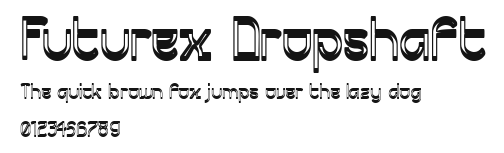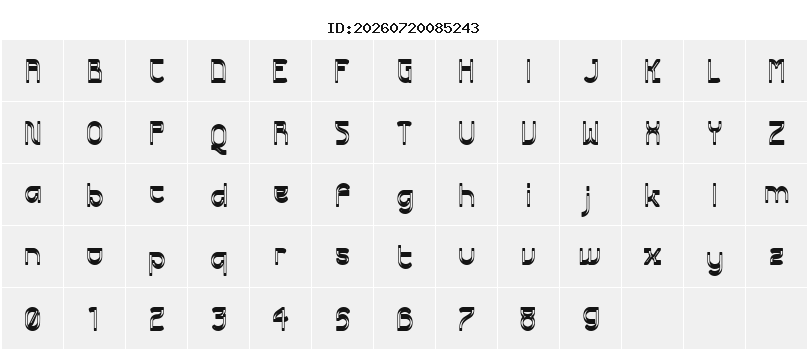
Futurex Dropshaft Preview
• Font Name: Futurex Dropshaft
• Designer: Graham Meade
About Futurex Dropshaft.ttf
Futurex Dropshaft.ttf is a modern, elegant sans-serif font designed for ultimate readability and visual harmony. Perfect for branding, headlines, web design, and print materials.